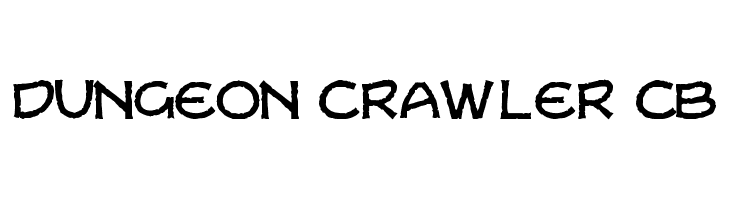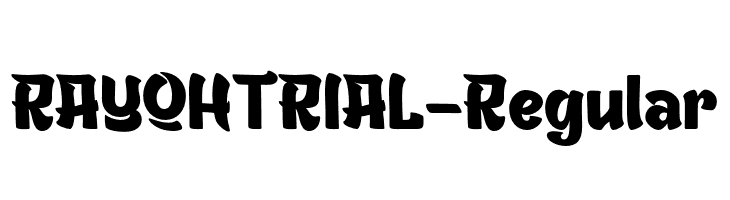
A bold, dripping font perfect for horror themes.
A dripping, eerie font ideal for horror themes.
A bold, hand-drawn font with textured, playful characters.
A whimsical, playful font with jagged edges and dynamic strokes, perfect for magical themes.
A playful, spooky font with swirling patterns and eerie textures.
A mystical, hand-drawn font with brush-like strokes and artistic flair.
A decorative font with a fantasy and medieval-inspired design, featuring bold, angular lines and ornate details.
A playful, monster-themed font with bold, animated characters.
A spooky, bone-themed decorative font perfect for Halloween designs.
A bold, spooky font with irregular edges, perfect for Halloween themes.